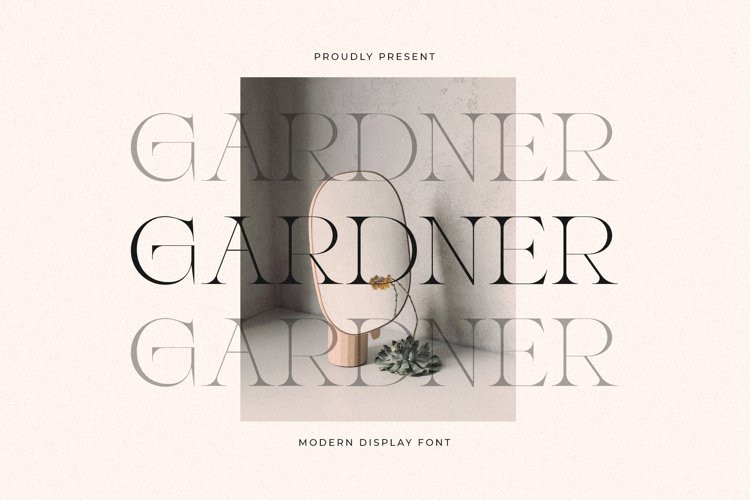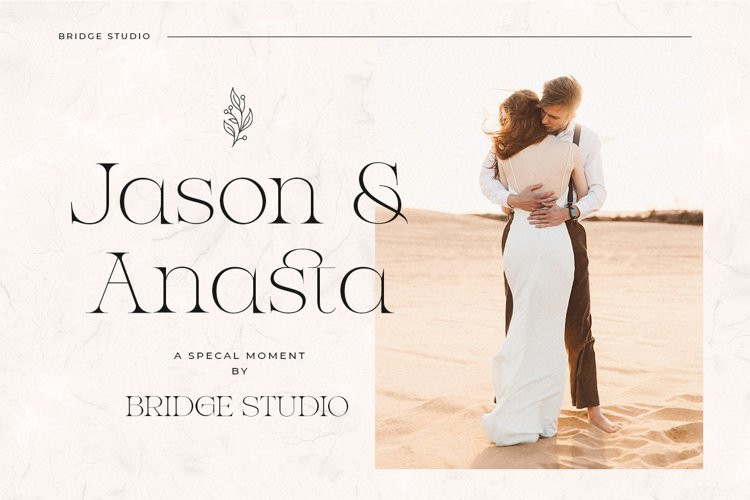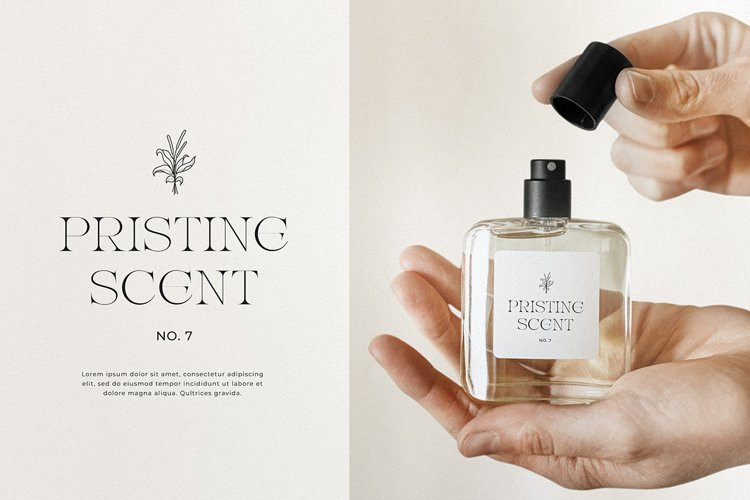
Gardner Font
Gardner FontGardner is a display typeface, carefully handcrafted to become a true favorite.
Its casual charm makes it appear wonderful down-to-earth, readable and, ultimate, incredibe versatile.
This font will look outstanding in any context, whether it’s being used on busy backgrounds or as a standalone headline especially monochrome on design!